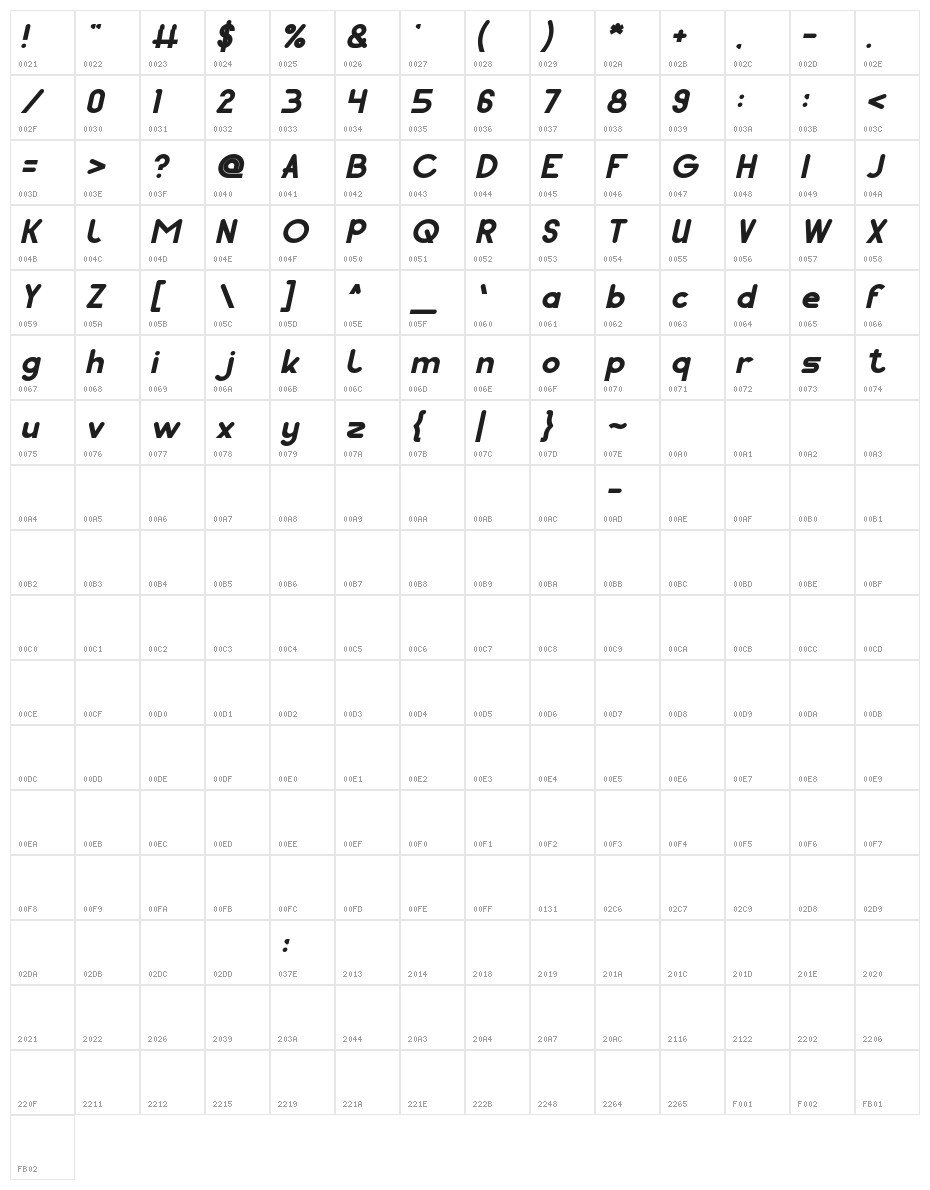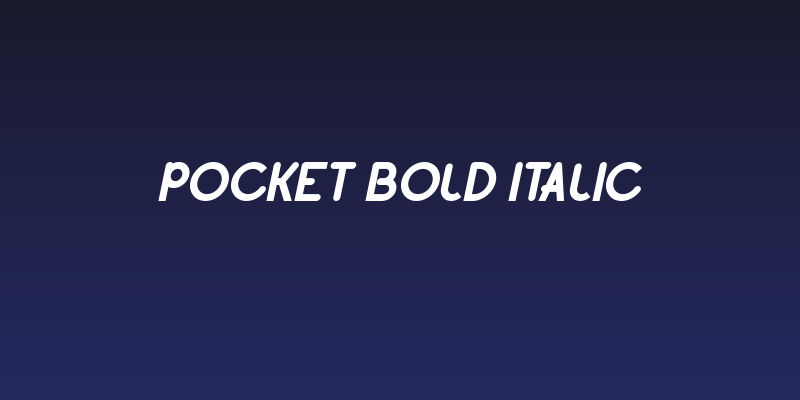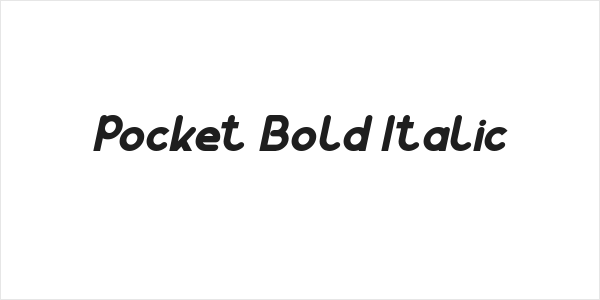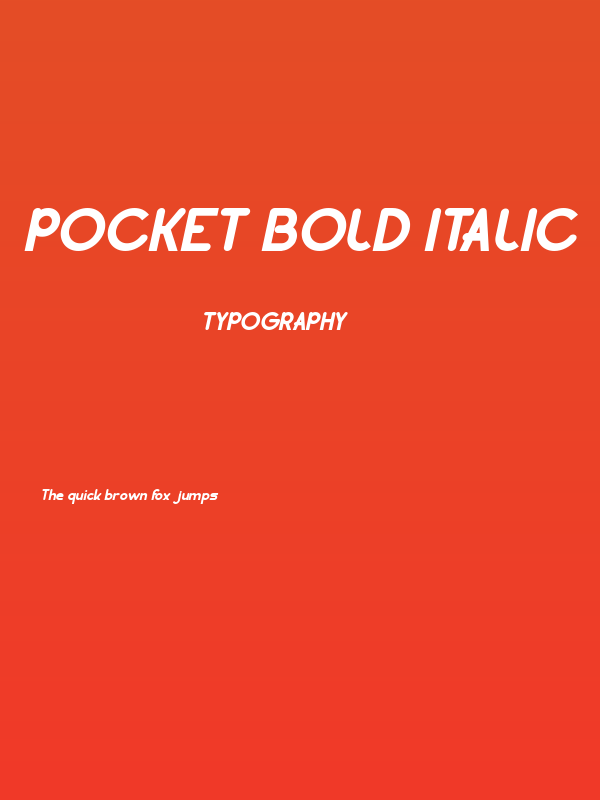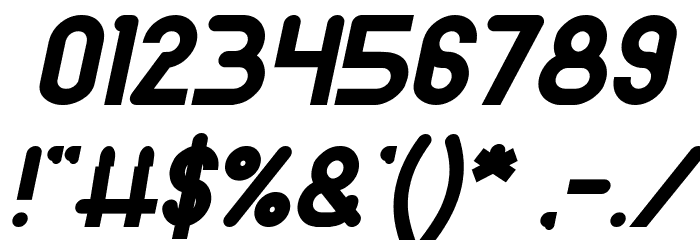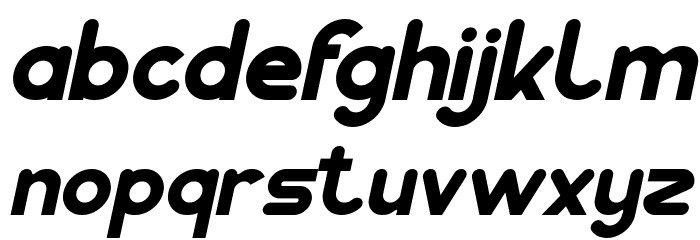
Pocket Bold Italic Font
This font features a bold and italicized style that combines a modern aesthetic with a playful touch. The characters are rounded and slightly slanted, giving them a dynamic and energetic appearance. The uppercase and lowercase letters maintain consistent proportions, ensuring readability while adding a unique flair. The numbers and special characters are designed to match the overall style, with smooth curves and a cohesive look. This font's boldness makes it stand out, while the italic slant adds a sense of motion and creativity.
| Proposed Projects | Ideal for branding, advertising, headlines, and creative projects that require a bold and dynamic typeface. |